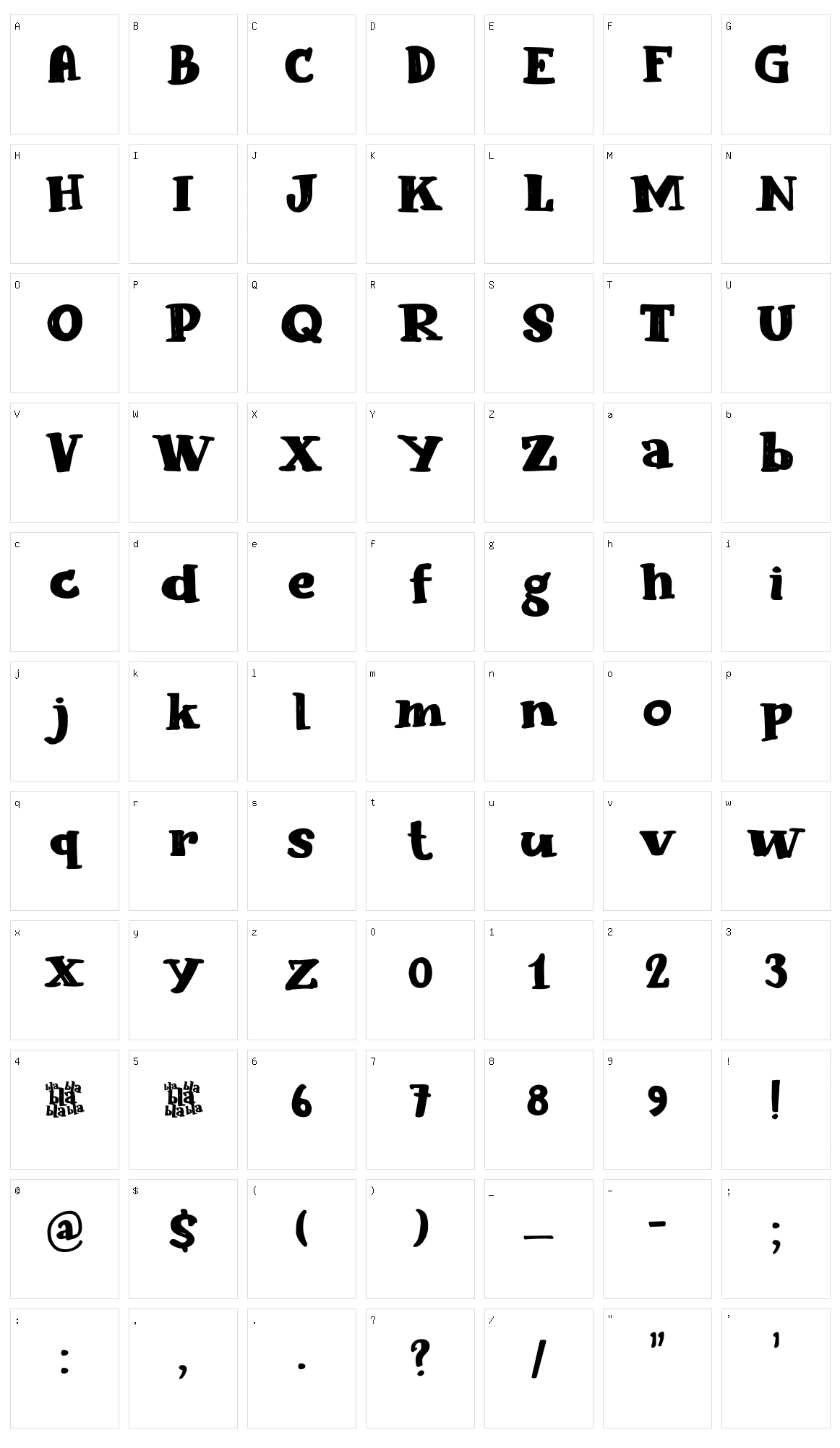
The free font Blabbermouth is carefully designed by Hanoded, showcasing a thoughtful balance of creativity and usability and falls under the Cartoon font style. When you download the ZIP file, it contains only 242.43 KB of font files, making it lightweight and quick to download. Please review the license details below to understand permitted usage and distribution rights. If license information is not available, we recommend using this font for personal projects only or contacting the author directly for commercial usage permissions.